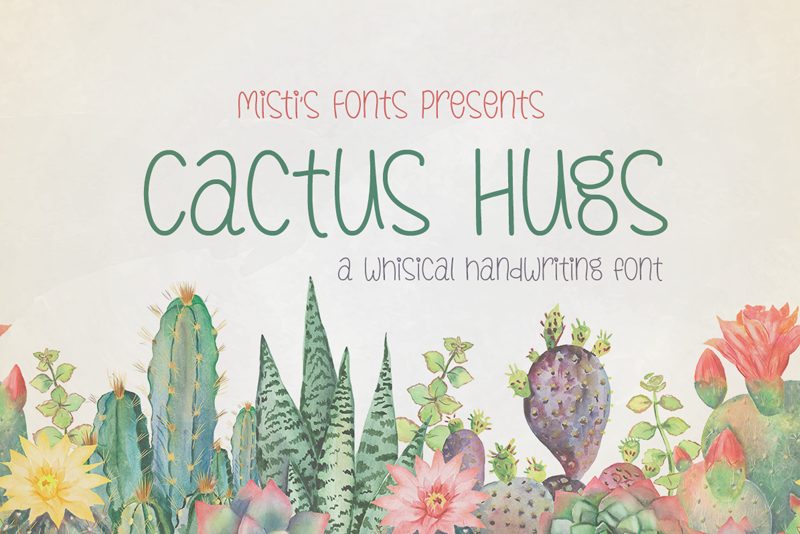
Font name: | Cactus Hugs |
Cactus Hugs is an adorable handwritten typeface. It would be great on Etsy shop logos, banners, and products. Its playful style makes it ideal for creating charming greeting cards and personalized items, as well as for cartoon or children-themed projects. Terms Of Use and Commercial Licensing: https://mistifonts.com/cactus-hugs/ |